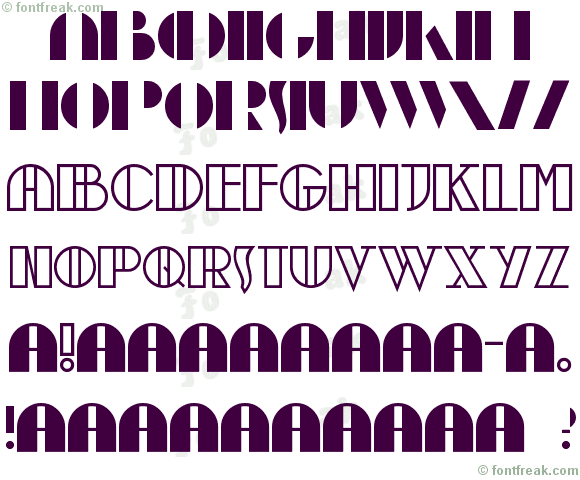
moebius
About moebius
The Moebius font, designed by Peter Wiegel, is a captivating display typeface that showcases a unique blend of modern aesthetics and artistic expression. This font is categorized as a decorative typeface, characterized by its bold, geometric forms and intriguing circular shapes. The stroke weight is consistent, providing a harmonious balance between thick and thin lines, while the overall contrast creates a visually striking appearance. The spacing is well-considered, allowing for clear readability even in larger text sizes, making it an excellent choice for eye-catching designs.
Moebius is an ideal choice for a variety of specific use cases. It works beautifully for wedding invitations, where its artistic flair can add a touch of elegance and sophistication. Additionally, the font is perfect for movie posters, lending a contemporary feel that can draw in viewers. Restaurant menus can also benefit from Moebius, as its distinctiveness can make dishes stand out and create an inviting atmosphere. Furthermore, graphic designers can utilize this typeface in branding projects, where its unique style can help businesses differentiate themselves in a competitive market.
What truly sets the Moebius font apart is its ability to merge functionality with artistic design. It offers a distinctive visual appeal that captures attention while remaining versatile for numerous applications. For those looking for a fresh and innovative typeface, the Moebius font free download is a fantastic option that can enhance any creative endeavor.